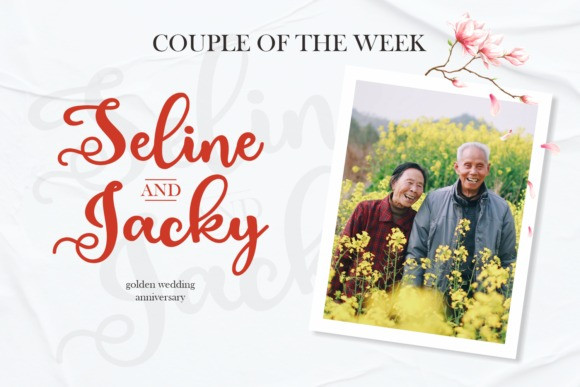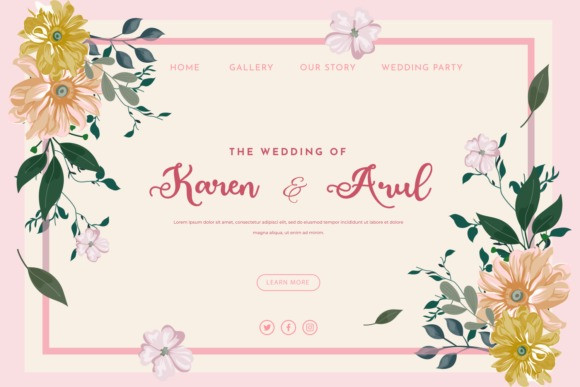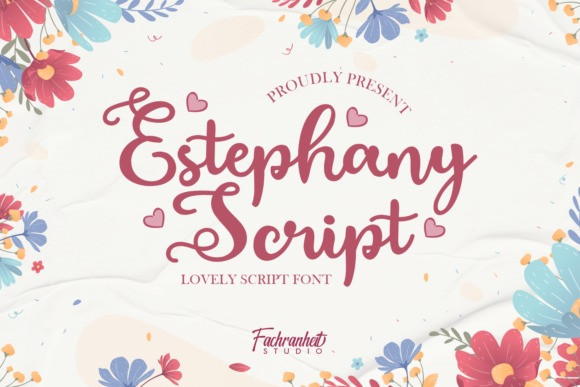
Estephany Script Font
Estephany Script Font is a Lovely Script font. The simple characteristics of Estephany Script make it very suitable for various purposes such as quotes, wedding card, flyers, logos, logotype, labels, branding etc.